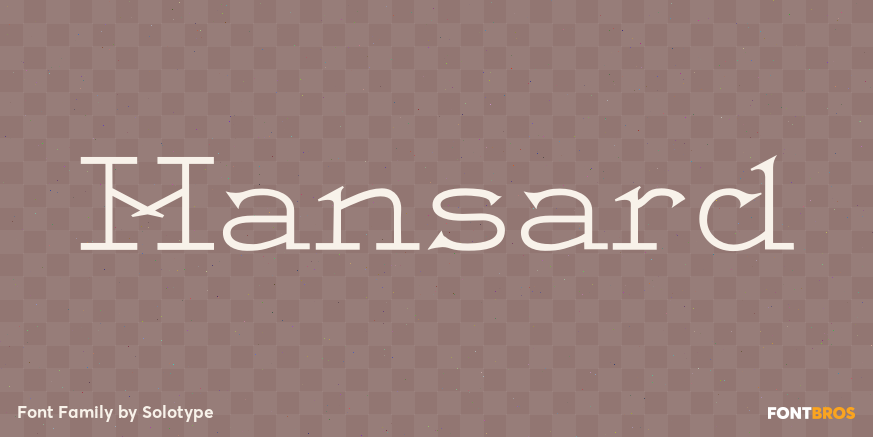
HomeFont BrosHistoricalHansard HistoricalSerif Hansard FacebookXPinterestWhatsApp 1 of 1 About Hansard This is a neat lightface font from the 1880s, issued by MacKellar, Smiths & Jordan of Philadelphia. Just a hint of Victorian design on a few letters. All in all a clean, easy to use font.  DOWNLOAD NOW People also explored Youthlounge Font Waltune Font Misty Gold Font Abecedário Font Eraser Doodles Font Freedom Font Deslosta Font Fioletrina Font Parsley Script 326 0 TagsHansardHansard Font Previous articleCorporate S StdNext articleSpeedball LEAVE A REPLY Cancel reply Comment: Please enter your comment! Name:* Please enter your name here Email:* You have entered an incorrect email address! Please enter your email address here Website: Save my name, email, and website in this browser for the next time I comment. Personal Use Free Angista Script Personal Use Free Read more about this font Machine House Personal Use Free Read more about this font Choco Shake Font Personal Use Free Read more about this font Built Tilting Personal Use Free Read more about this font BLOG Fonts That Capture the Spirit of New York City New York City is more than just a place—it’s an experience, a rhythm, a visual language... Top 7 Google Fonts Alternatives for Faster and Privacy-Friendly Web Design (2025) Transform Your Website: Elevate Your Typography with 7 Best Web Font Generators Using Fonts in Digital Marketing: Tips to Strengthen Your Brand Identity